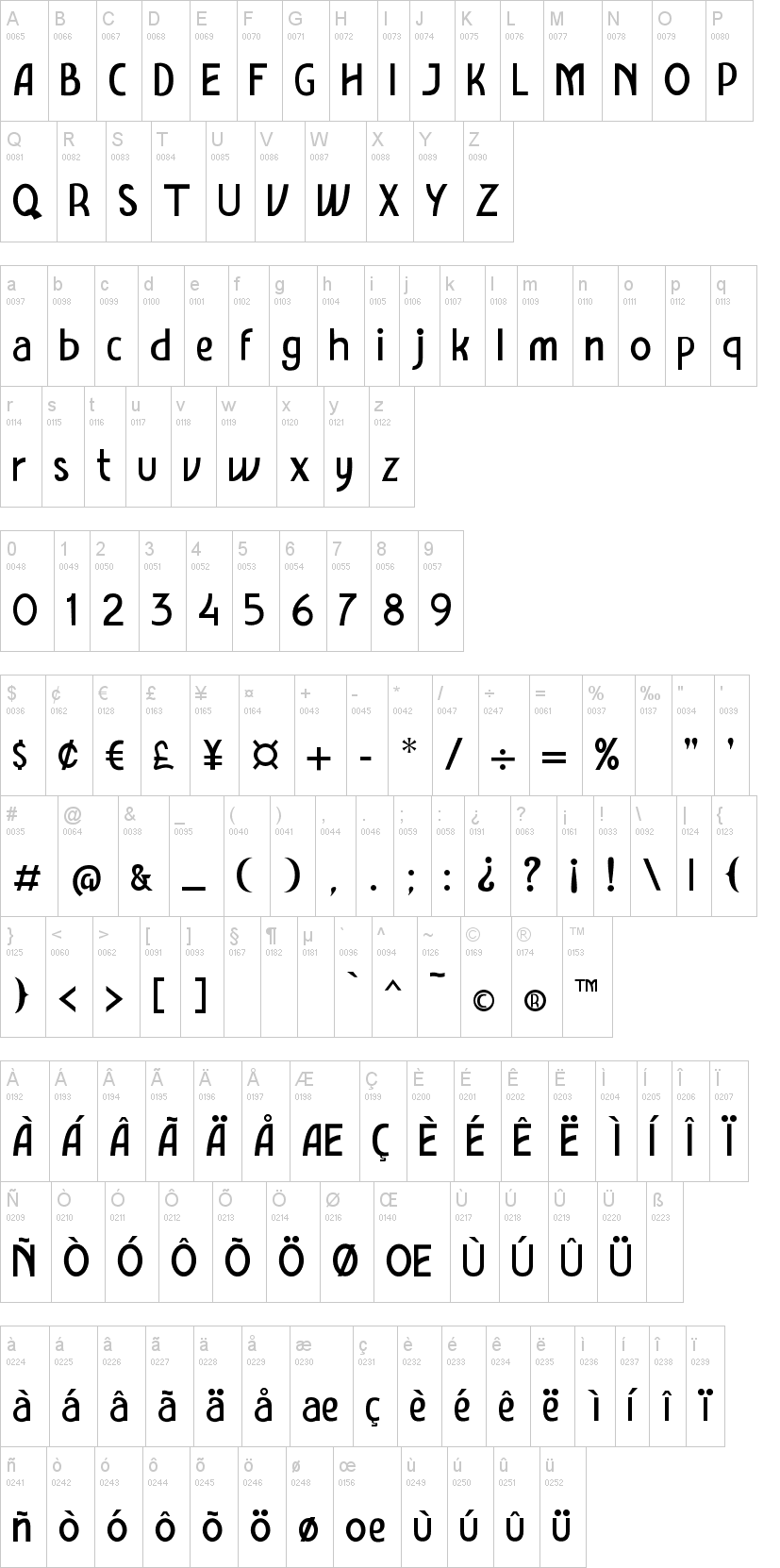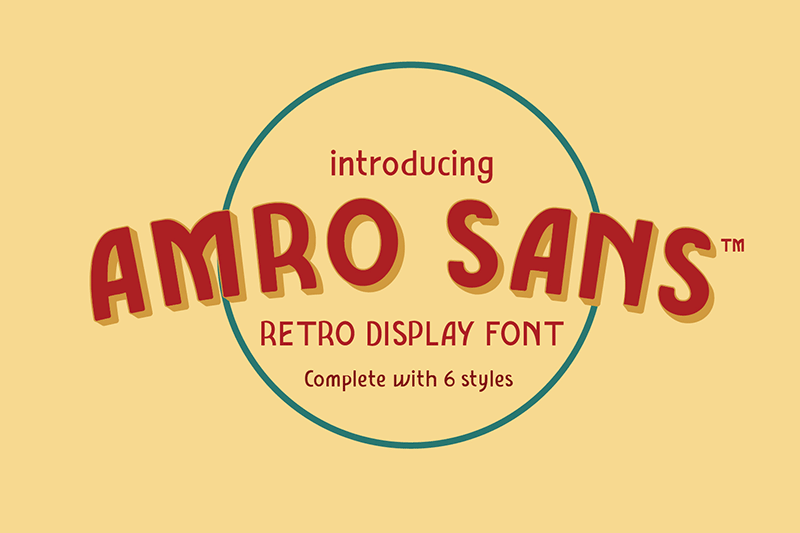
Amro Sans Italic.ttfAmro Sans Bold.ttfNote of the authorAmro Sans is a retro-style typeface that is suitable for use as a text display or headline, can be used also for logos, labels, and so on. Equipped with 4 different styles (Regular, Italic, Bold, Bold Italic) and 2 additional styles (Extrude bold, Extrude Bold Italic).